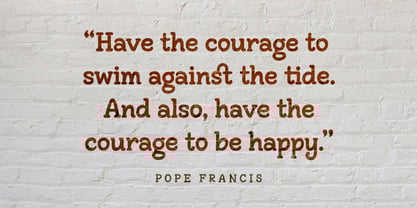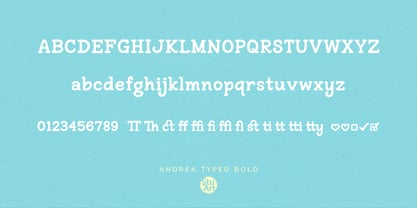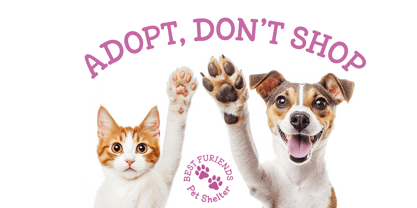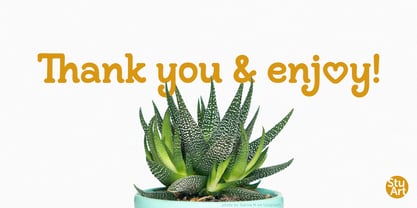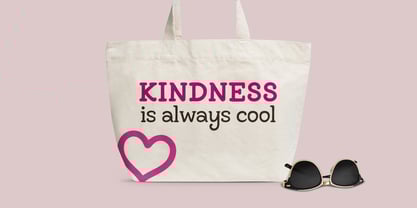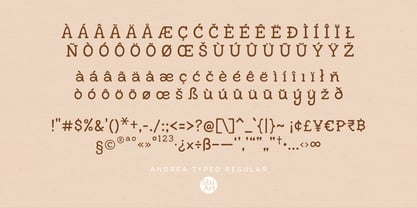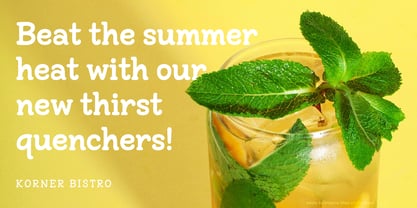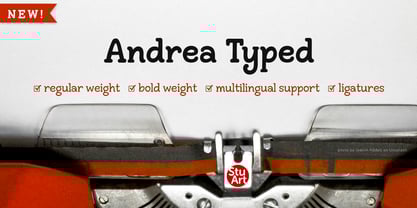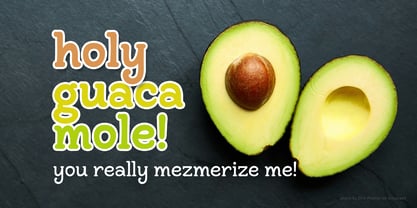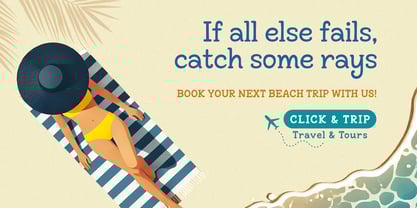
Andrea Typed
The Andrea Typed Font Family was designed by Andrea Stuart and published by StuArt. Andrea Typed contains 2 styles and family package options. More about this family
Need a handwritten font? Or a typewriter font? Why not both?! Andrea Typed is derived from StuArt's Andrea Handwriting series, with slabs added for that typewritten look. Inspired by her search for a casual slab serif font to pair with a handwriting font and not quite finding "the one", Andrea made her own. The result is a playful yet also professional look that is great for branding, crafting, cards, invitations, signs, and more! Both the regular and bold weights have a charm and character all their own. Enjoy!
About StuArt
StuArt is the passion project of Andrea Stuart, where pen meets pixel. It began with a simple appreciation for the curves of an ‘s’ and evolved into a lifelong love for the art of letters. She was especially drawn to the ones that felt human—organic, relaxed, and full of personality. When she discovered the tools to create her own, she began turning her signature style into digital type, and StuArt was born—a foundry dedicated to capturing the warmth of a handwritten note without the ink stains. It's personality, digitized.